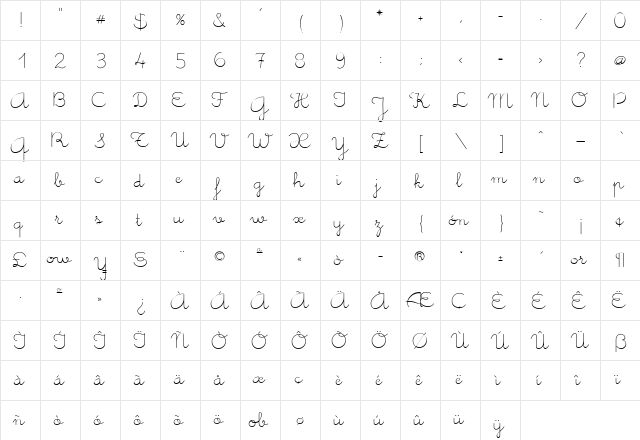
Memimas Regular
Design Context for Memimas Typeface
Memimas is a composed and adaptable typeface that performs quietly and consistently across a wide range of design contexts.